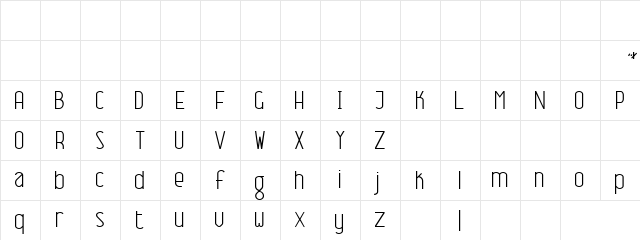
Name This Font Normal
Design Context for Name This Font
Name This Font is a composed and adaptable typeface that performs quietly and consistently across a wide range of design contexts.